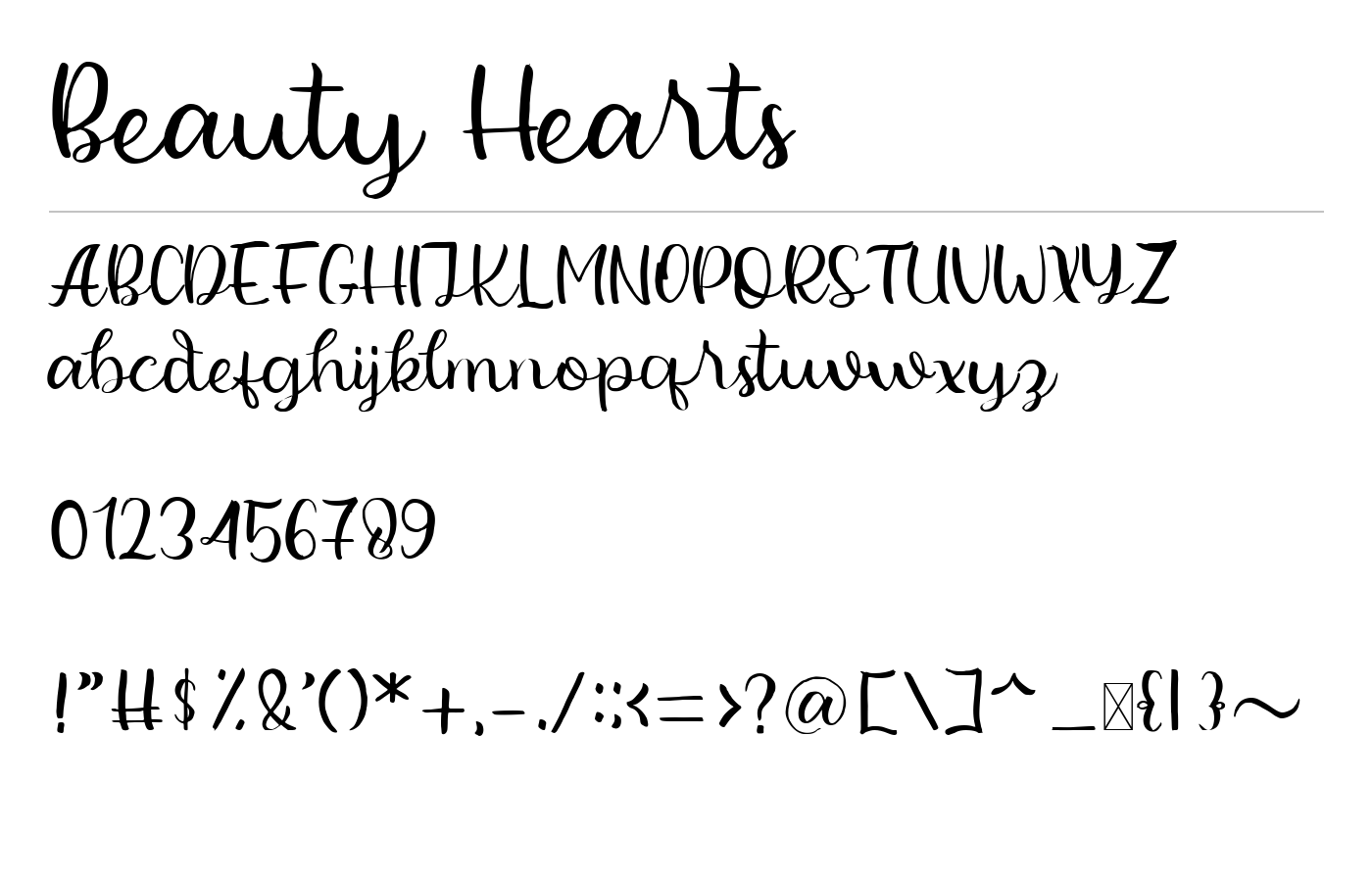
Beauty Hearts is a charming handwritten script font with playful, flowing letterforms that feel warm and personal. Its moderately thick strokes and casual style make it perfect for inviting designs such as greeting cards, branding for creative or feminine products, and social media graphics that aim to convey friendliness and creativity.
Beauty Hearts Font
About Beauty Hearts Font